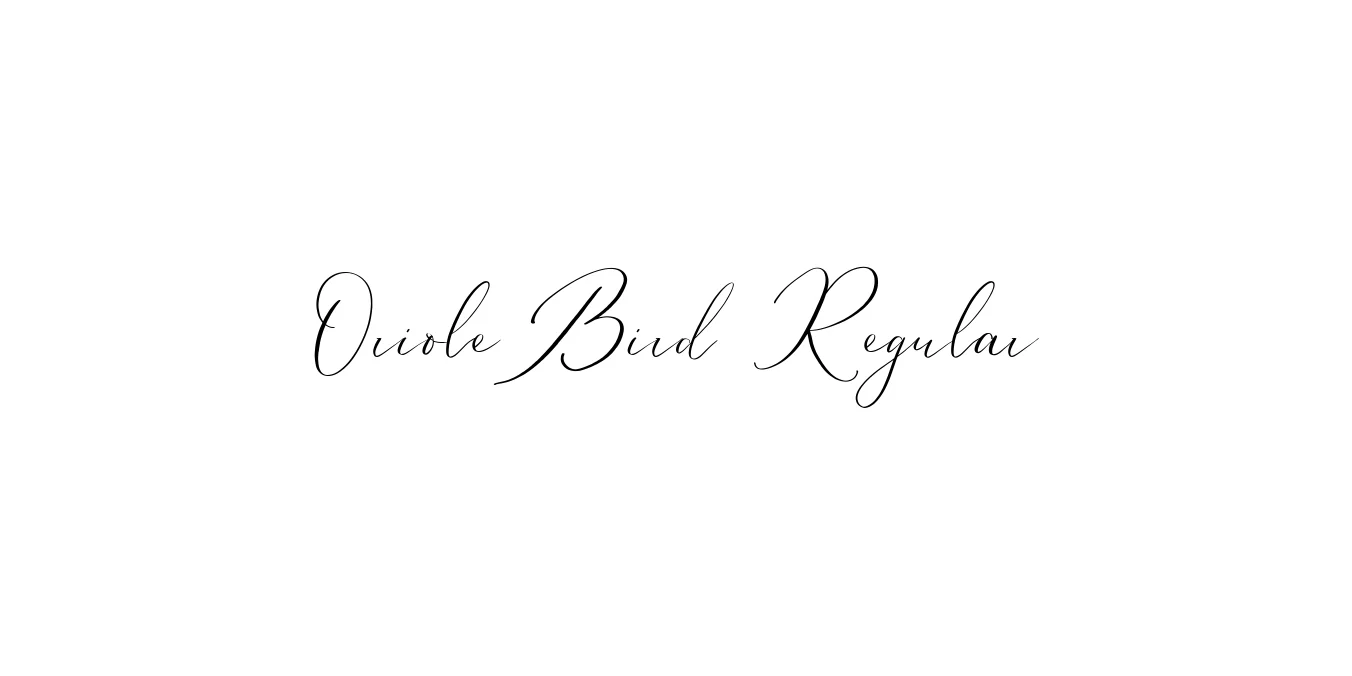
OrioleBird Regular
Designed by Saji Abu
OrioleBird Regular is a beautifully crafted script typeface that emphasizes fluid motion and organic lines. Developed by the talented designer Saji Abu, this font draws inspiration from traditional calligraphy while incorporating contemporary design elements to ensure high legibility and a modern feel. Its rhythmic strokes and natural connections make it an excellent choice for designers seeking to add a personal, hand-lettered touch to their digital or print compositions.
The typeface is particularly well-regarded for its versatility in creative branding and editorial work. OrioleBird Regular offers a sophisticated yet approachable aesthetic, making it suitable for everything from high-end fashion labels to casual lifestyle blogs. Its unique character shapes and balanced spacing allow it to stand out in large headlines while maintaining its elegant charm in more subtle, decorative applications.
OrioleBird Regular Best Uses
Perfect for creating unique and memorable visual identities and logo marks.
Excellent for quote graphics, Instagram stories, and engaging visual content.
Adds a sophisticated and romantic hand-lettered touch to invitations and cards.
Enhances the artisanal and premium feel of product labels and boutique packaging.